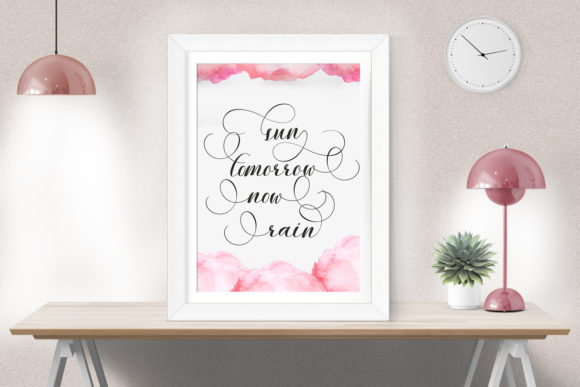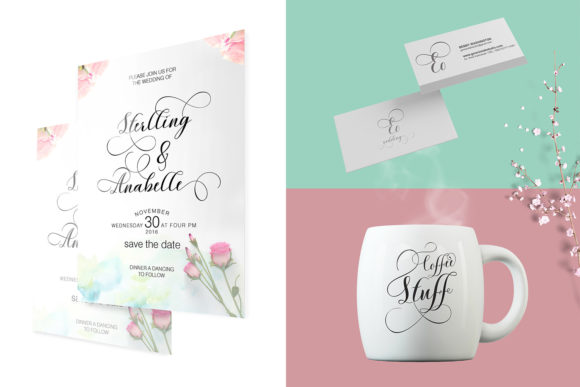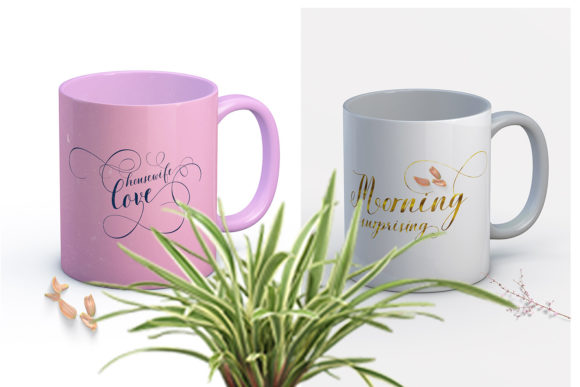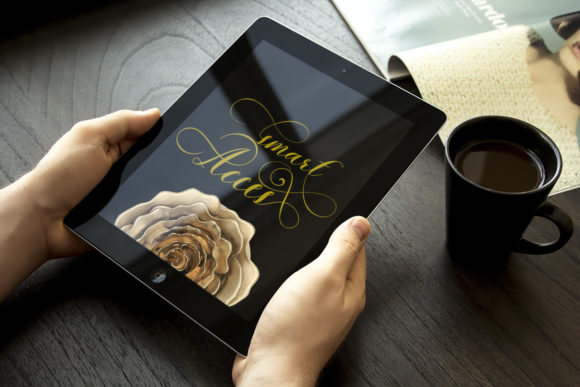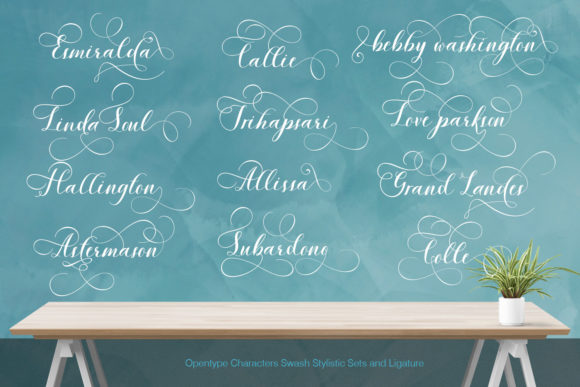
Salamanta Script Font
About Salamanta Script Font
Salamanta is a beautiful and modern script font that can make any text look better and more inviting! Perfect for invitations, greeting cards, art typography, logo, letterpress printing, parties, graduations, birthdays, gatherings, and all sorts of other design projects.